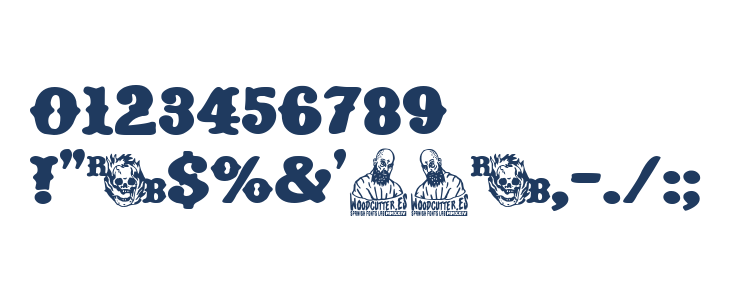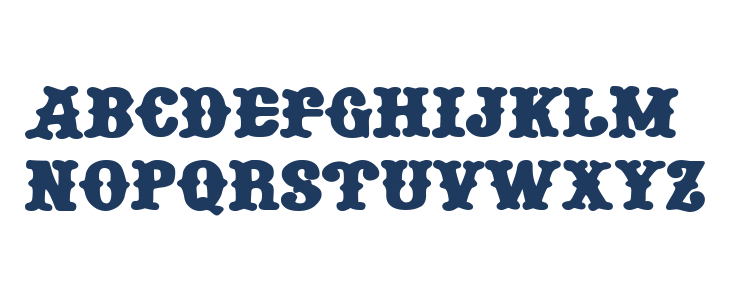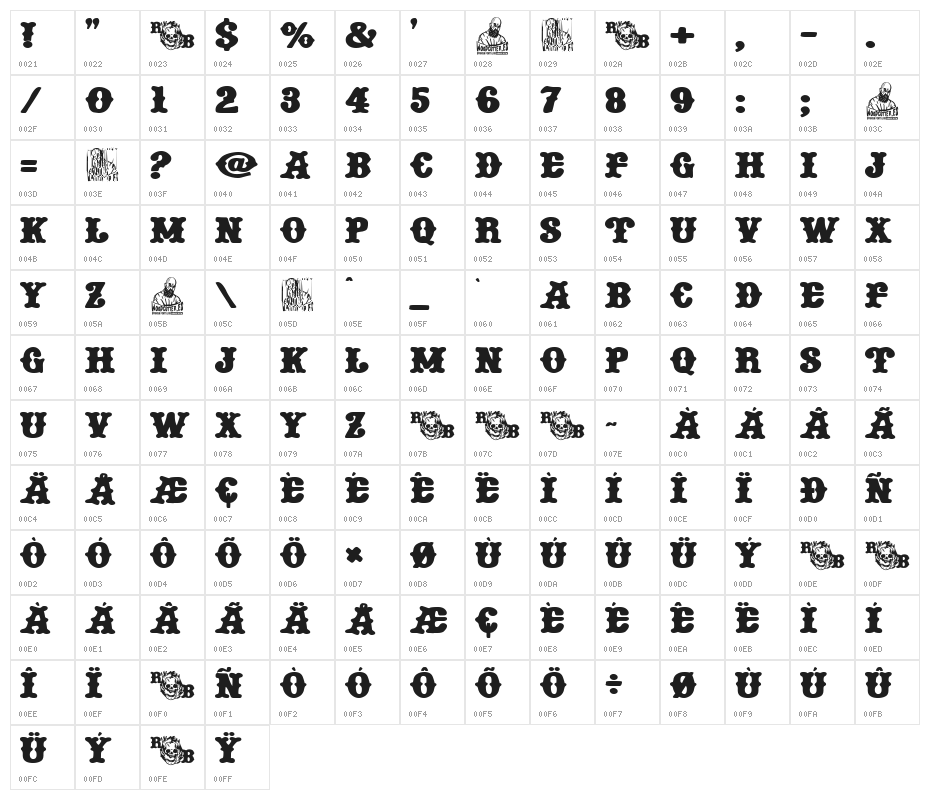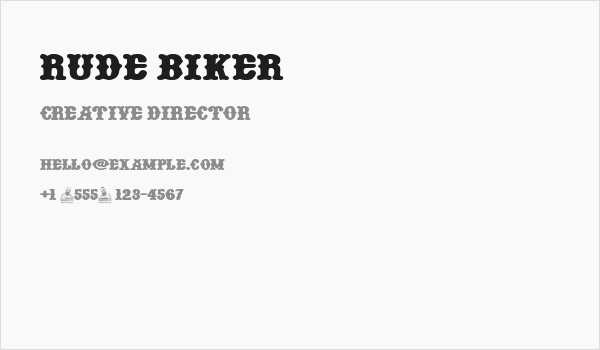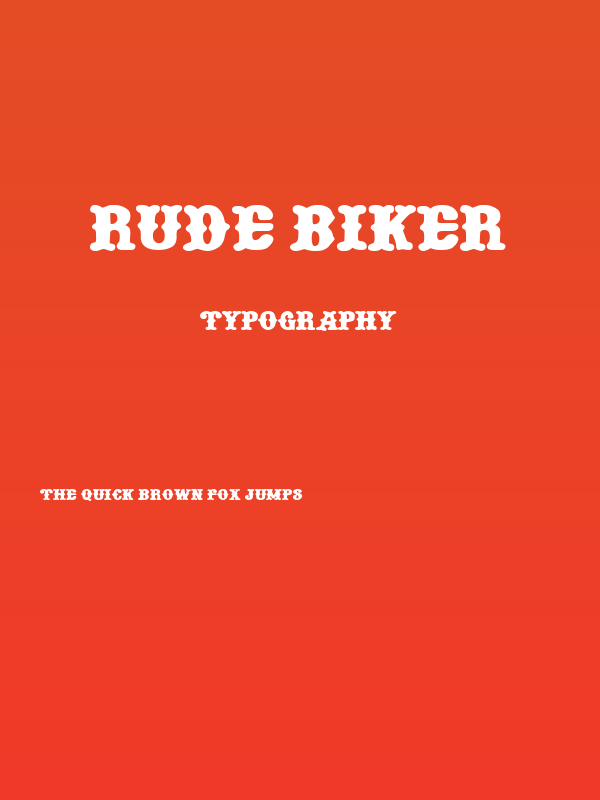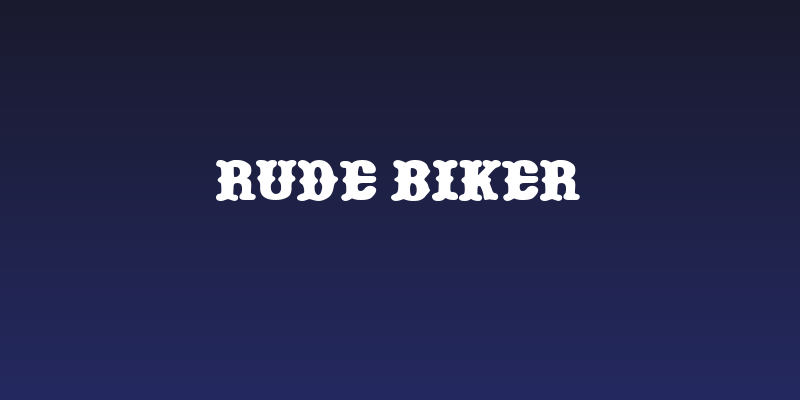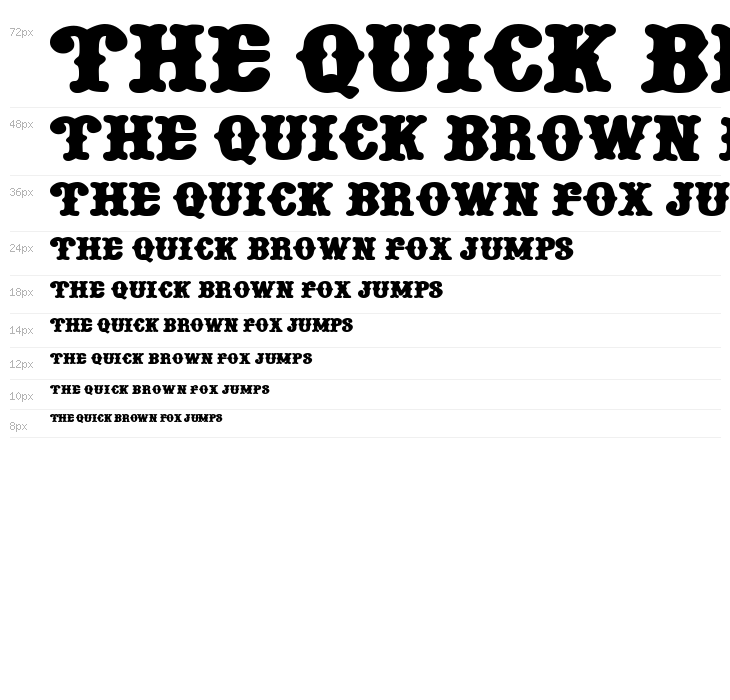
Rude Biker Font
Rude Biker Description
A bold, decorative display font with heavy, rounded serifs and thick strokes, giving it a rugged and playful appearance. The characters are wide with exaggerated curves and a strong presence, suitable for attention-grabbing designs.
| Overall Style | Decorative, Playful, Rugged |
| Proposed Projects | Posters, event flyers, logo design, merchandise, themed branding, signage. |